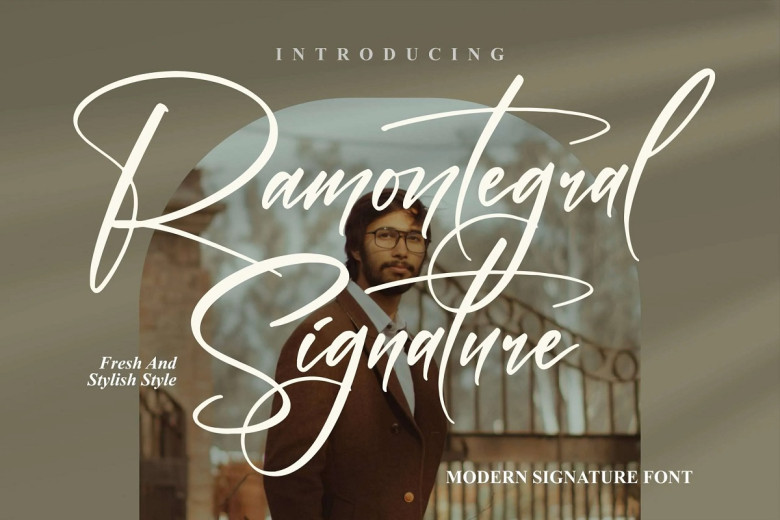
Ramontegral Signature Font
Ramontegral Signature is an exquisite script font designed with elegance. PUA encoded, you have access to all its glyphs and swashes quickly!